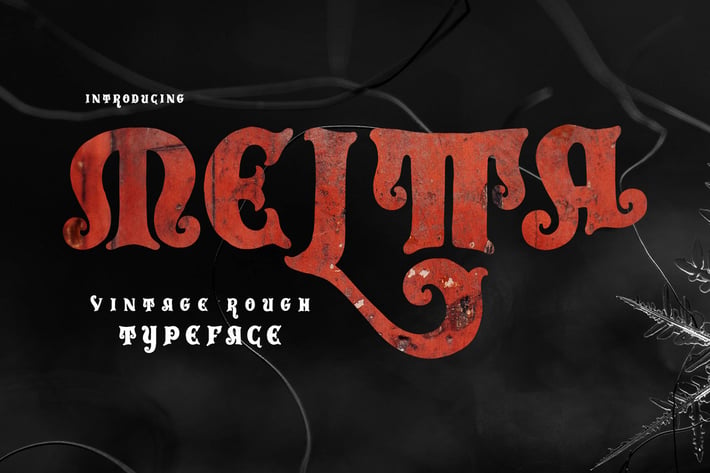
Meltta Typeface
Meltta Typeface A font that is inspired by the old gothic style writing which is commonly known as the Black letter style. But the Meltta Typeface is made with a rough and vintage touch to fit into a younger and cooler design. The Meltta Typeface is very suitable for design themed with gothic, vintage, rock designs and for whiskey packaging designs.